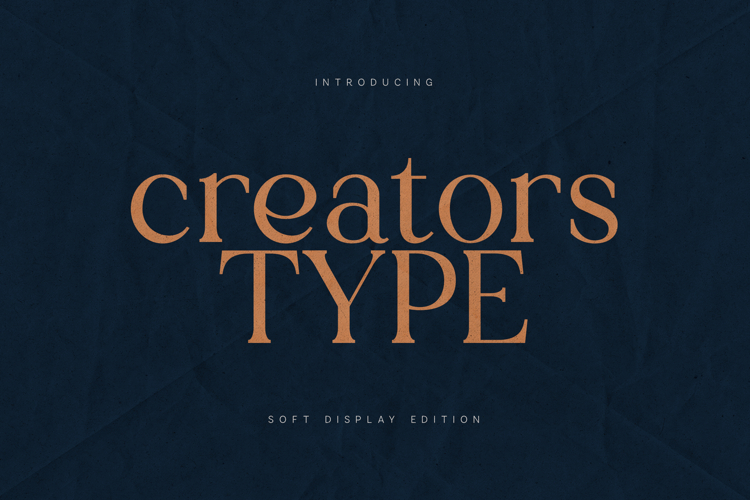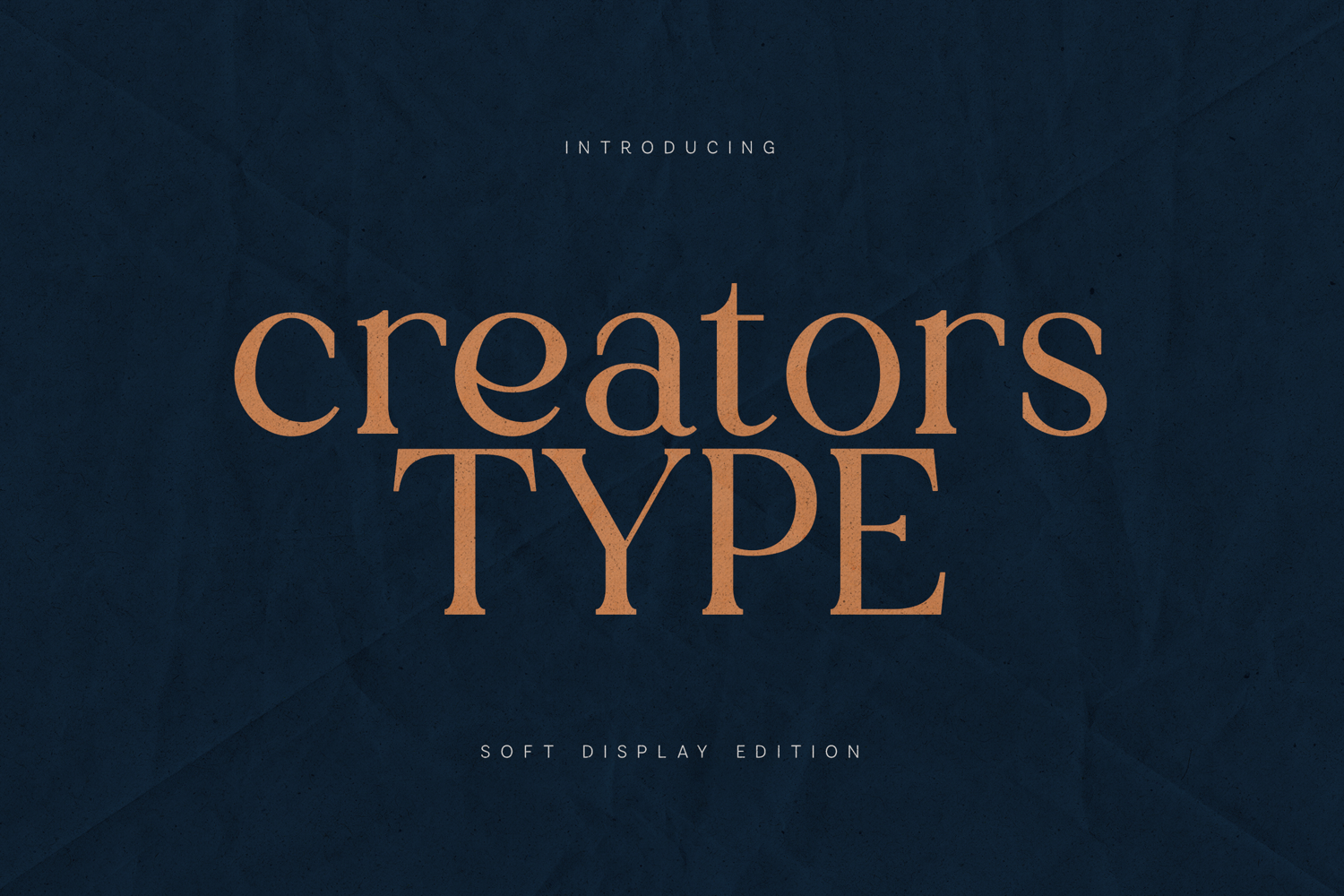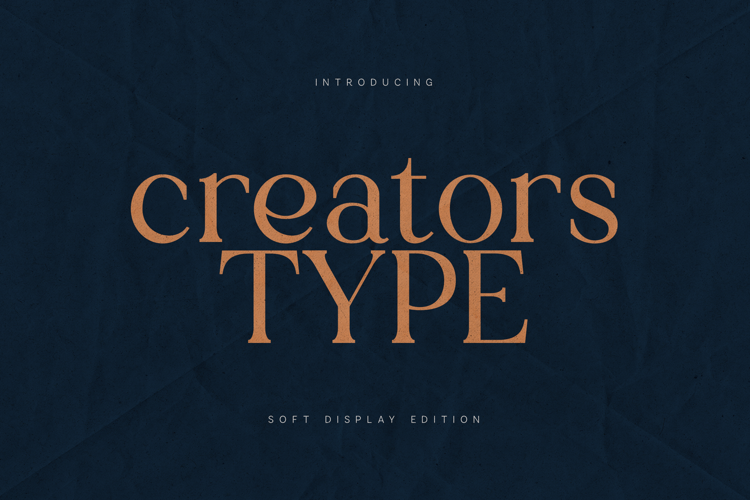
Creators Type Serif Font Elegant Soft Editorial
Creators Type – Soft Display Edition is a refined modern serif designed with smooth curves, elegant contrast, and timeless proportions.
The letterforms feel soft yet structured, balancing classic serif sophistication with contemporary minimalism. It’s crafted for branding projects that require warmth, clarity, and premium presence.
With carefully shaped serifs and clean spacing, Creators Type works beautifully in:
• Luxury branding
• Editorial layouts
• Fashion & beauty projects
• Logo design
• Packaging
• Invitations
• Social media campaigns
• Premium marketing materials
• Uppercase & lowercase
• Numerals
• Punctuation
• Symbols
• Extensive multilingual support
• Carefully kerned spacing
Creators Type is designed for designers who value softness, elegance, and modern serif aesthetics.